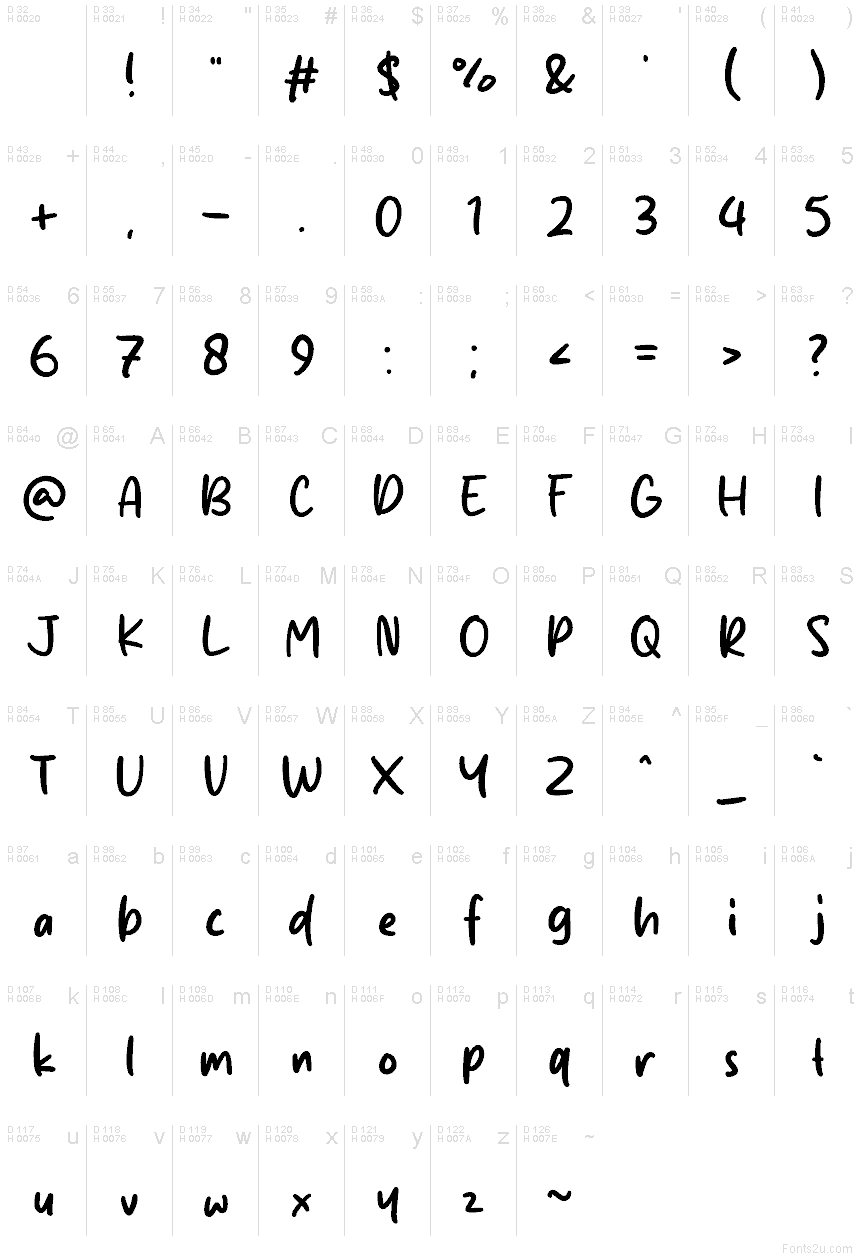
Silybrown
Silybrown font by MJType is a free handwritten font with a casual and modern aesthetic. This approachable style includes a freeform script that gives the written text a personal touch. It boasts both elegance and playfulness, making it suitable for multiple types of design projects.
Use Silybrown in handwritten logos, signatures, posters, wedding invitations, badges, packaging designs, social media posts or banners. Other possible use cases include apparel design such as T-shirts and magazines covers or pages. Combine the typeface with others in branding projects like labels or card designs.